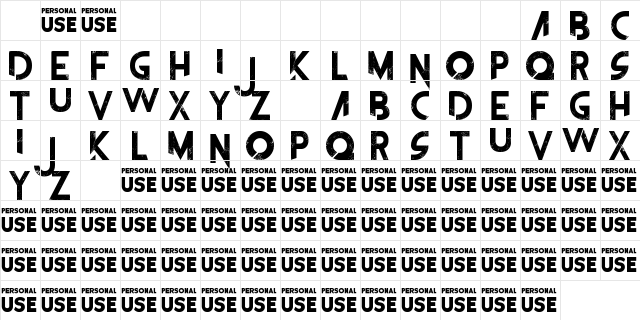
Complete The Frontman Regular glyph index. Displaying only characters natively supported by The Frontman Regular font.
The Frontman is a composed and adaptable typeface that performs quietly and consistently across a wide range of design contexts.